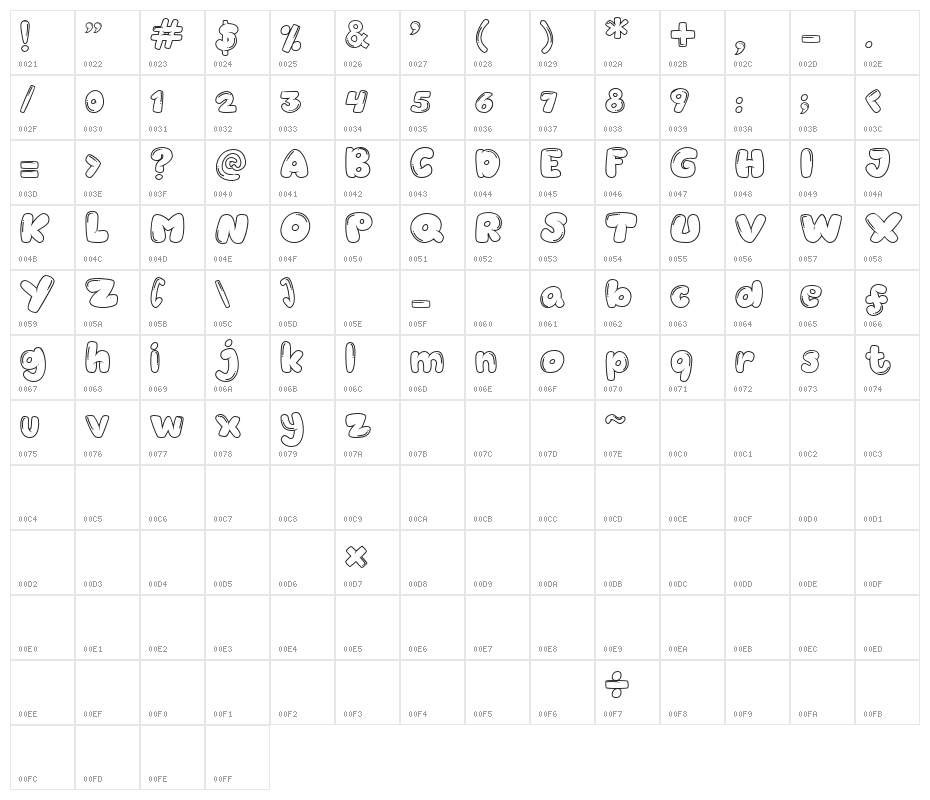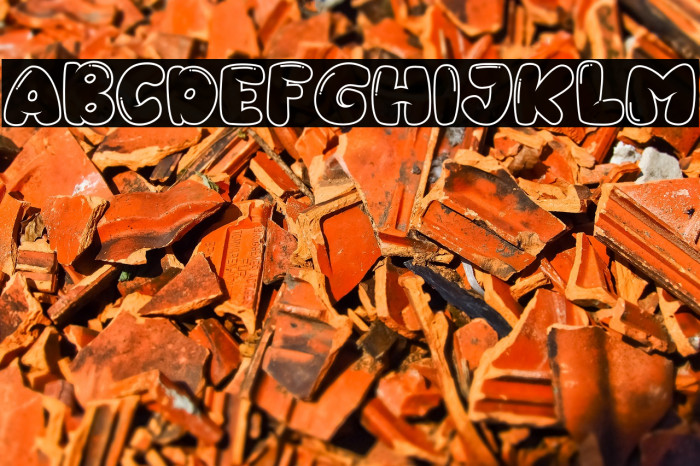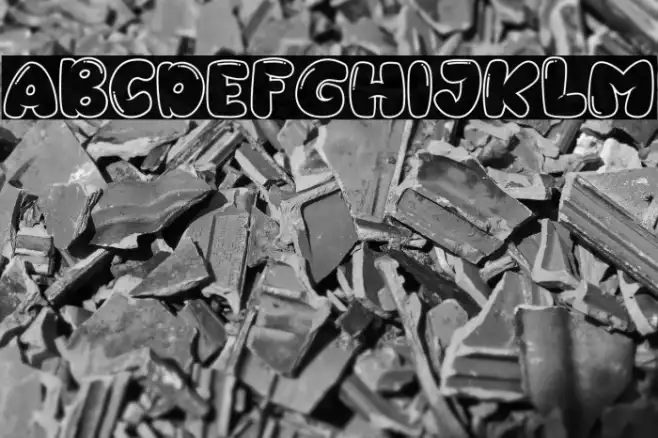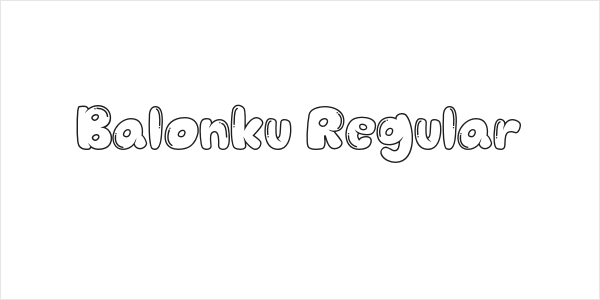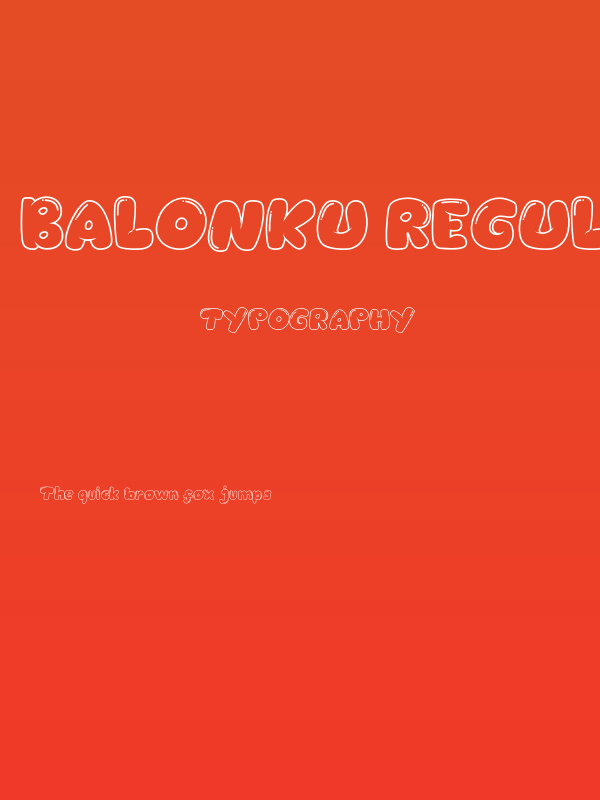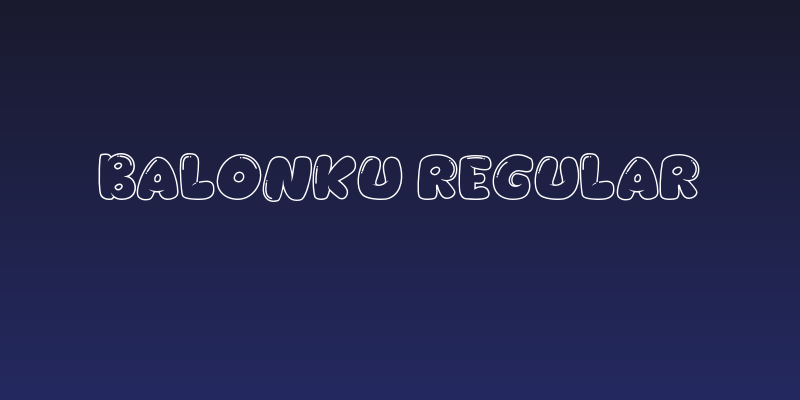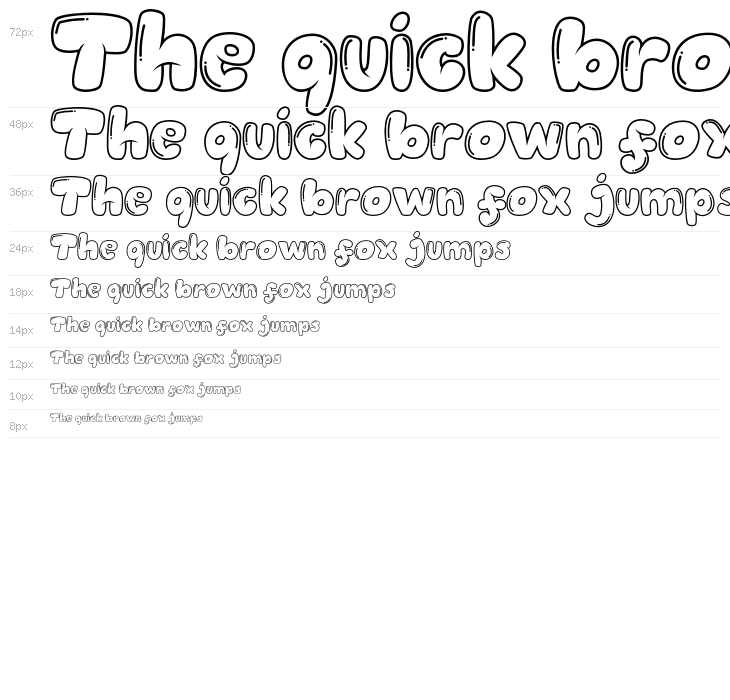
Balonku Regular Font
Balonku Regular Description
This playful and whimsical font features bold, rounded characters with a bubble-like appearance. Each letter is outlined, giving it a cartoonish and fun style that is both eye-catching and approachable. The font maintains a consistent thickness throughout, with a slight variation in stroke width that adds to its lively character. The spacing between characters is relatively tight, enhancing its compact and cohesive look. This font is ideal for projects that require a lighthearted and informal touch, making it perfect for children's books, playful branding, or party invitations.
| Proposed Projects | Children's books, playful branding, party invitations, posters, and comic strips. |